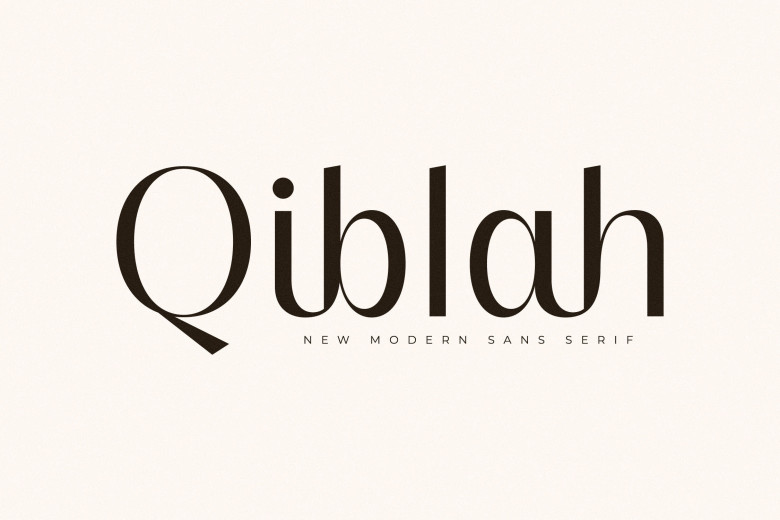
Qiblah Font
Qiblah is an innovative modern sans-serif font with its distinctive style and contemporary appearance, perfect for creating classy logos, book or film titles, fashion label clothing designs, magazines, lettering projects as well as quotes. This typeface makes an impactful statement.
Qiblah Sans Serif Font